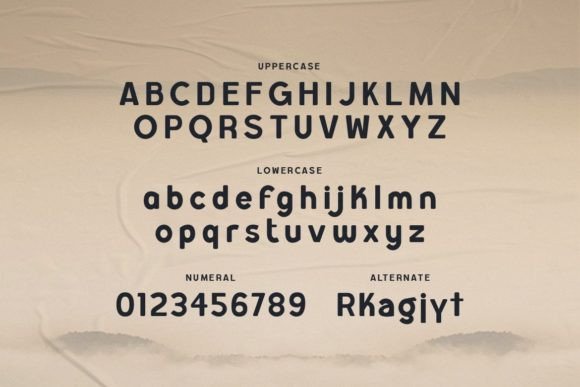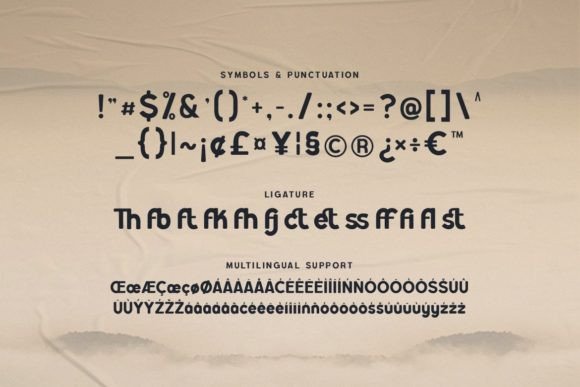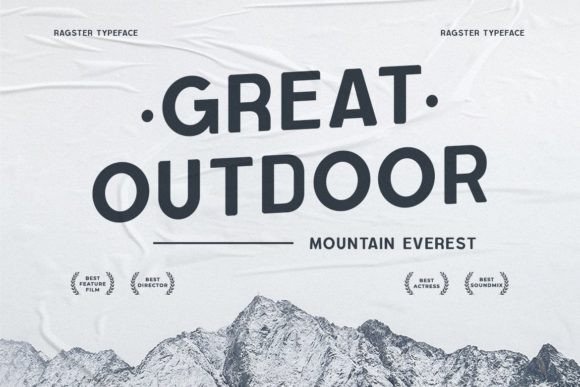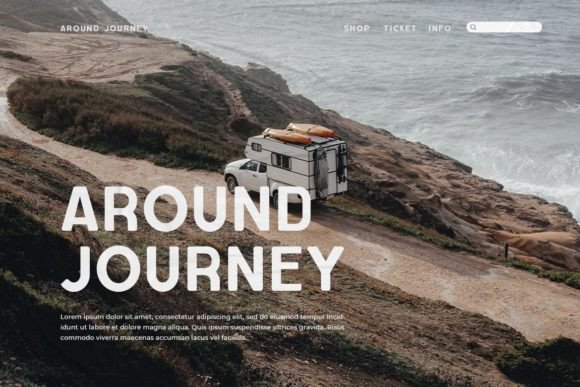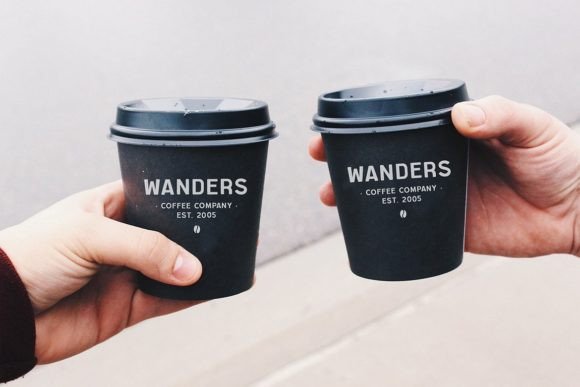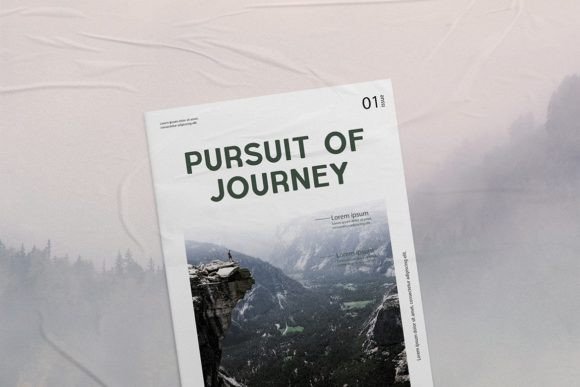
Introduction to Ragster Font
Ragster is a rounded Sans font.
It can easily be matched to an incredibly large set of projects, so add it to your creative ideas and notice how it makes them stand out This font is PUA encoded which means you can access all of the amazing glyphs and ligatures with ease.
Key Features of Ragster Font
Why Choose Ragster Font?